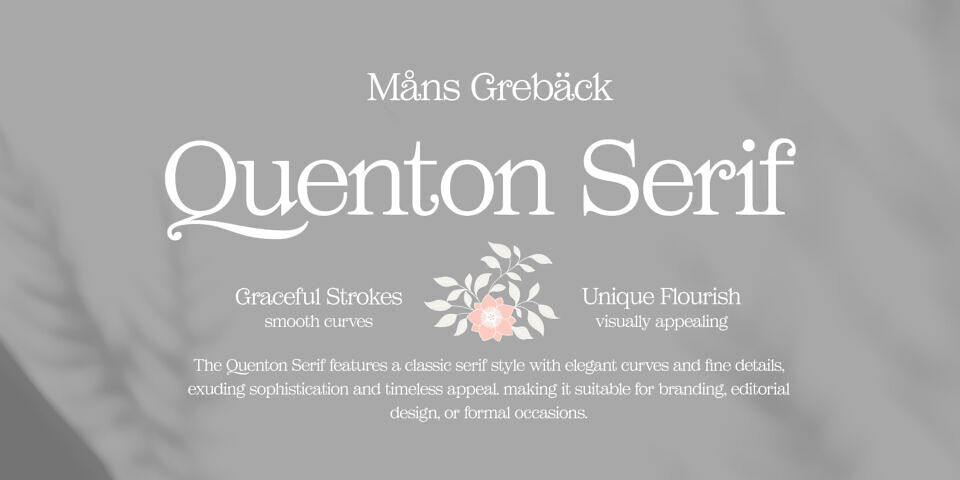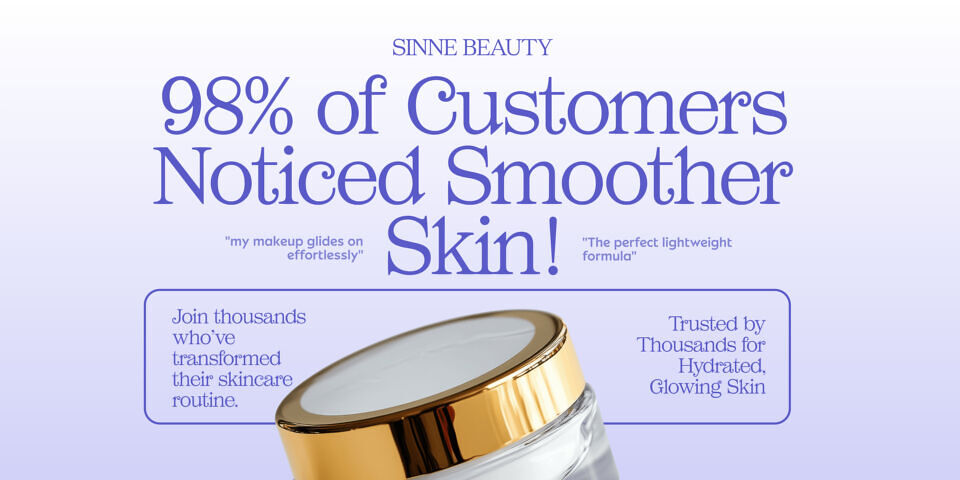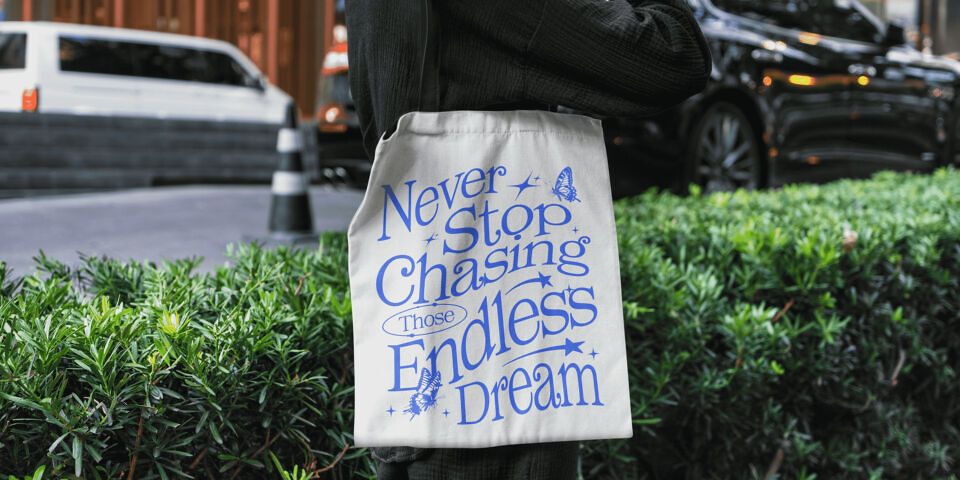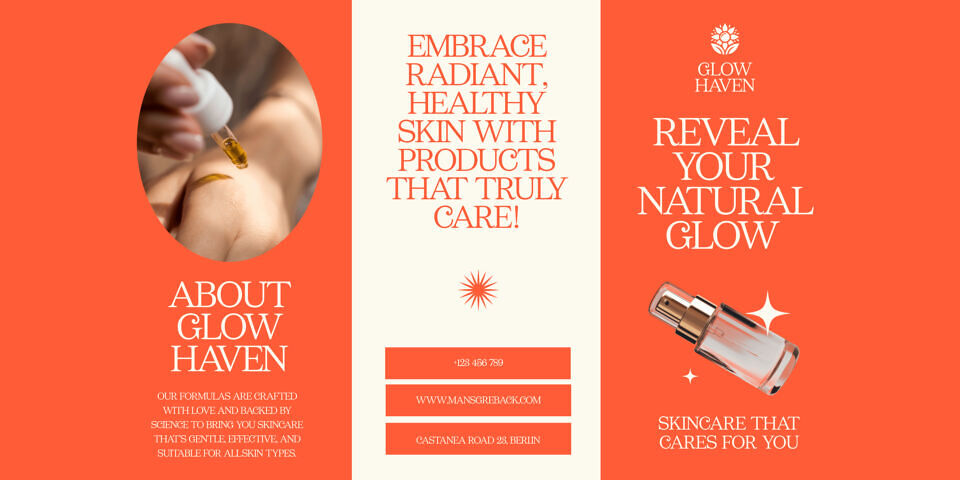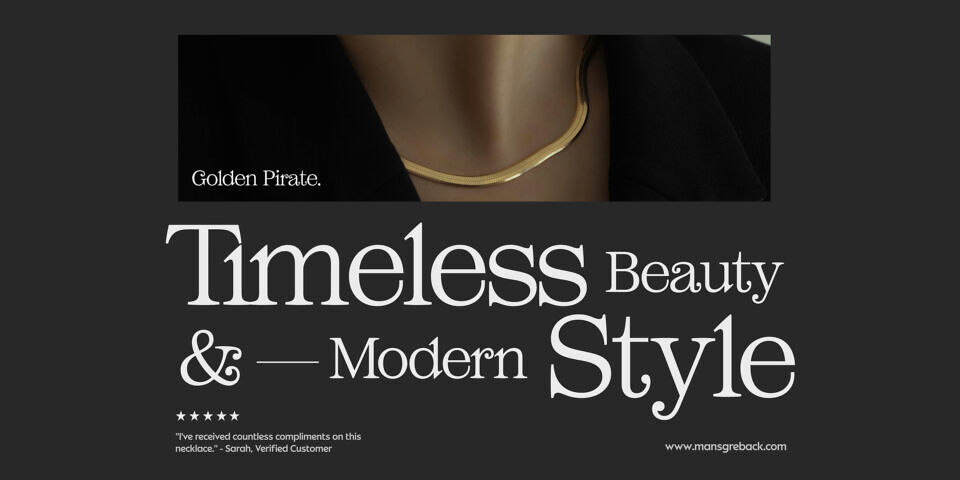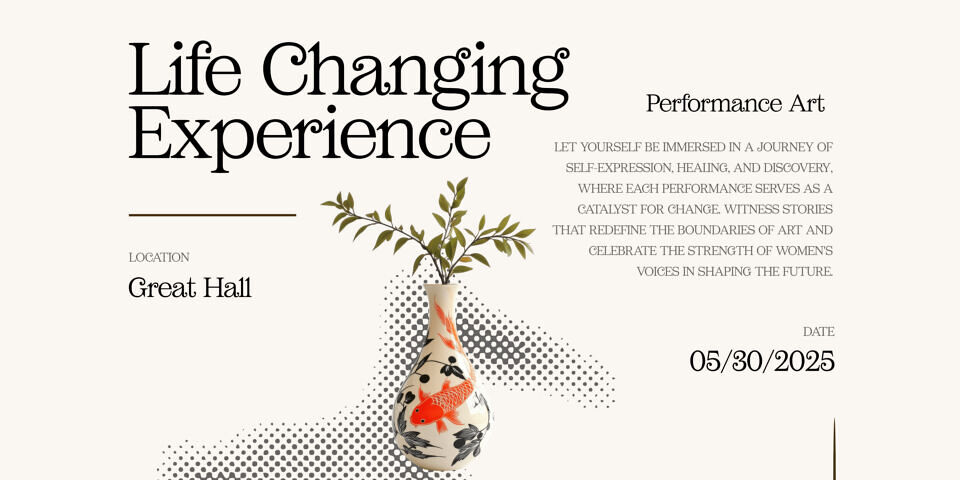
Quenton Serif is a sophisticated typeface with a balanced personality, making it applicable for a wide range of uses. The design has a distinct character with decorative details. Beautiful flowing curves, the elegant curls and sharp, crisp serifs. This typeface blends formal elegance with a modern sensibility. It can be used in a magazine layout or in a novel, or to evoke an upscale feel in branding.
This font is built with advanced OpenType functionality and guaranteed top-notch quality, containing stylistic and contextual alternates, ligatures and more automatic and manual features; all to give you full control and customizability. It has extensive lingual support, covering all Latin-based languages, from North Europa to South Africa, from America to South-East Asia. It contains all characters and symbols you’ll ever need, including all punctuation and numbers.
Mans Greback has carefully crafted this serif font with attention to detail, and with a desire to make it both versatile and unique.